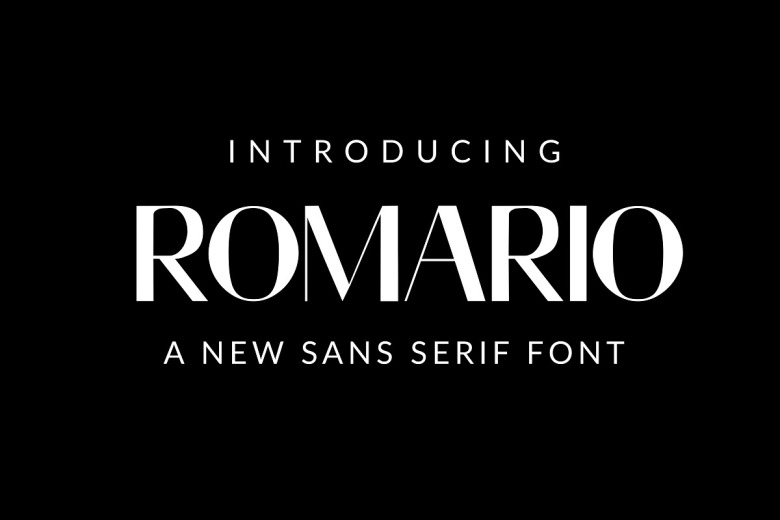
Romario Font
The Romario is very pretty printed by bold as well as realistic Sans Serif font which is soft in its legible forms; or you could say that it looks rather pretty( although not very!).
Romario is a bold and authentic Sans Serif font. It can easily be matched to an incredibly large set of projects, so add it to your creative ideas and notice how it makes them stand out!
Romario Sans Serif Font